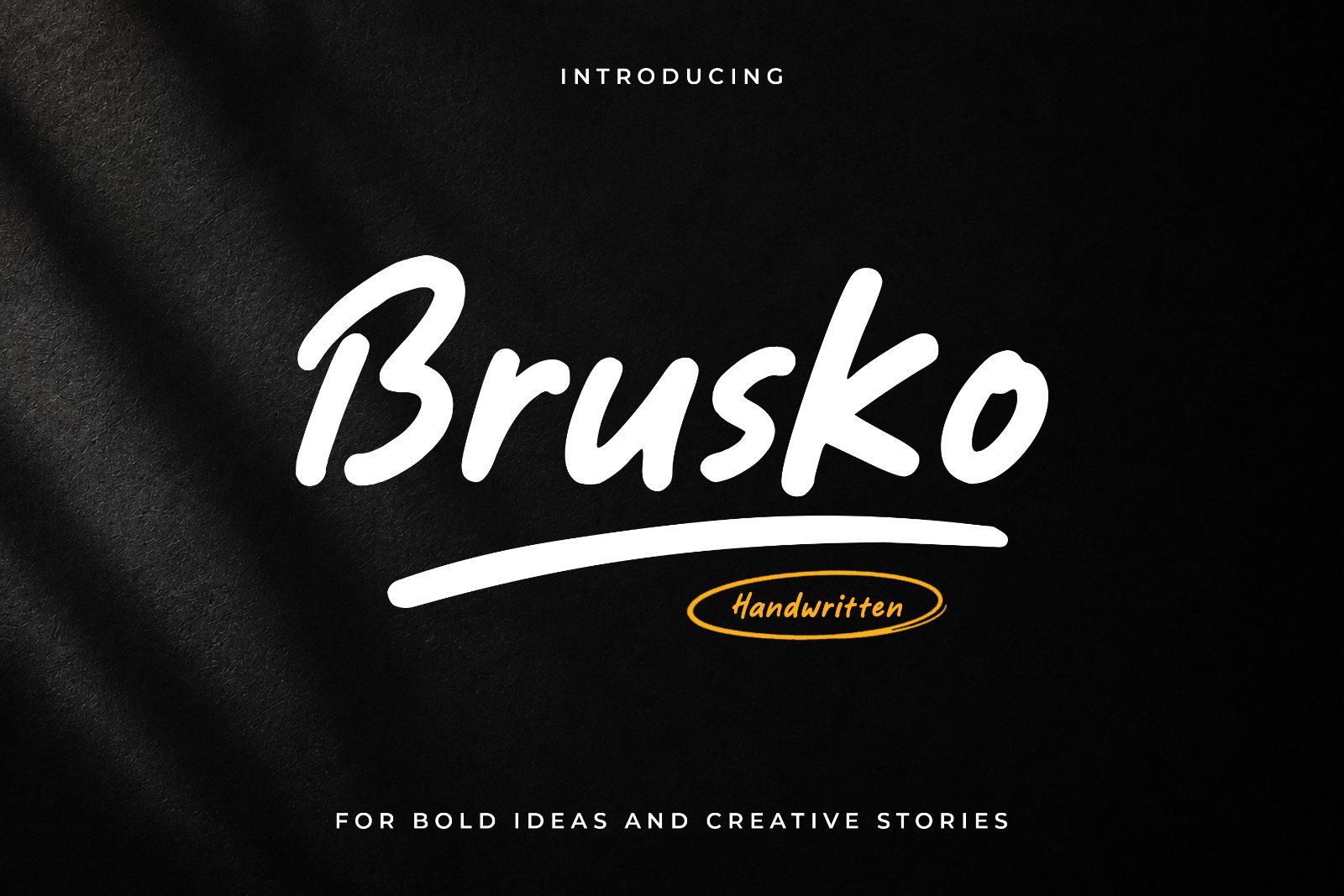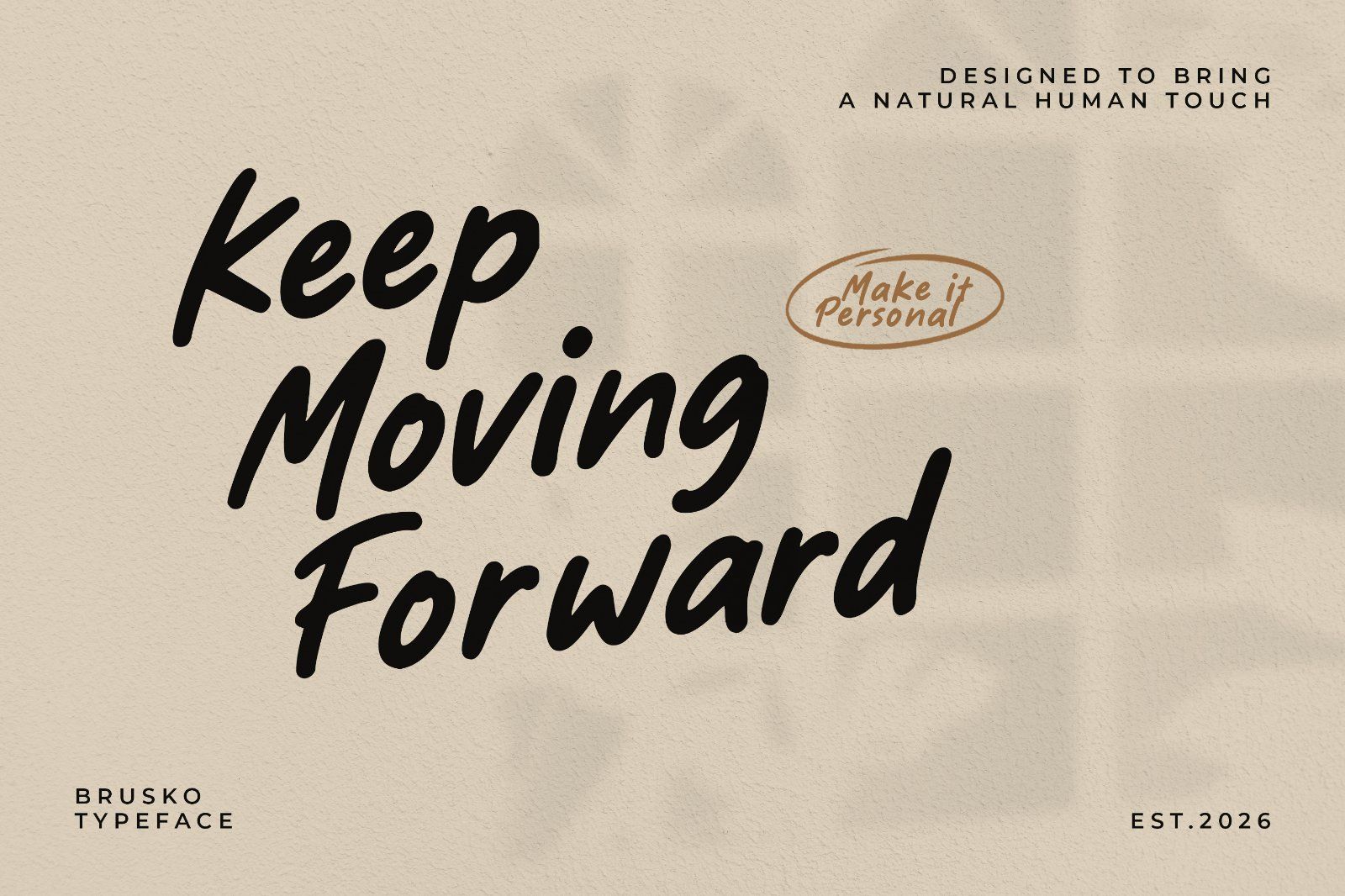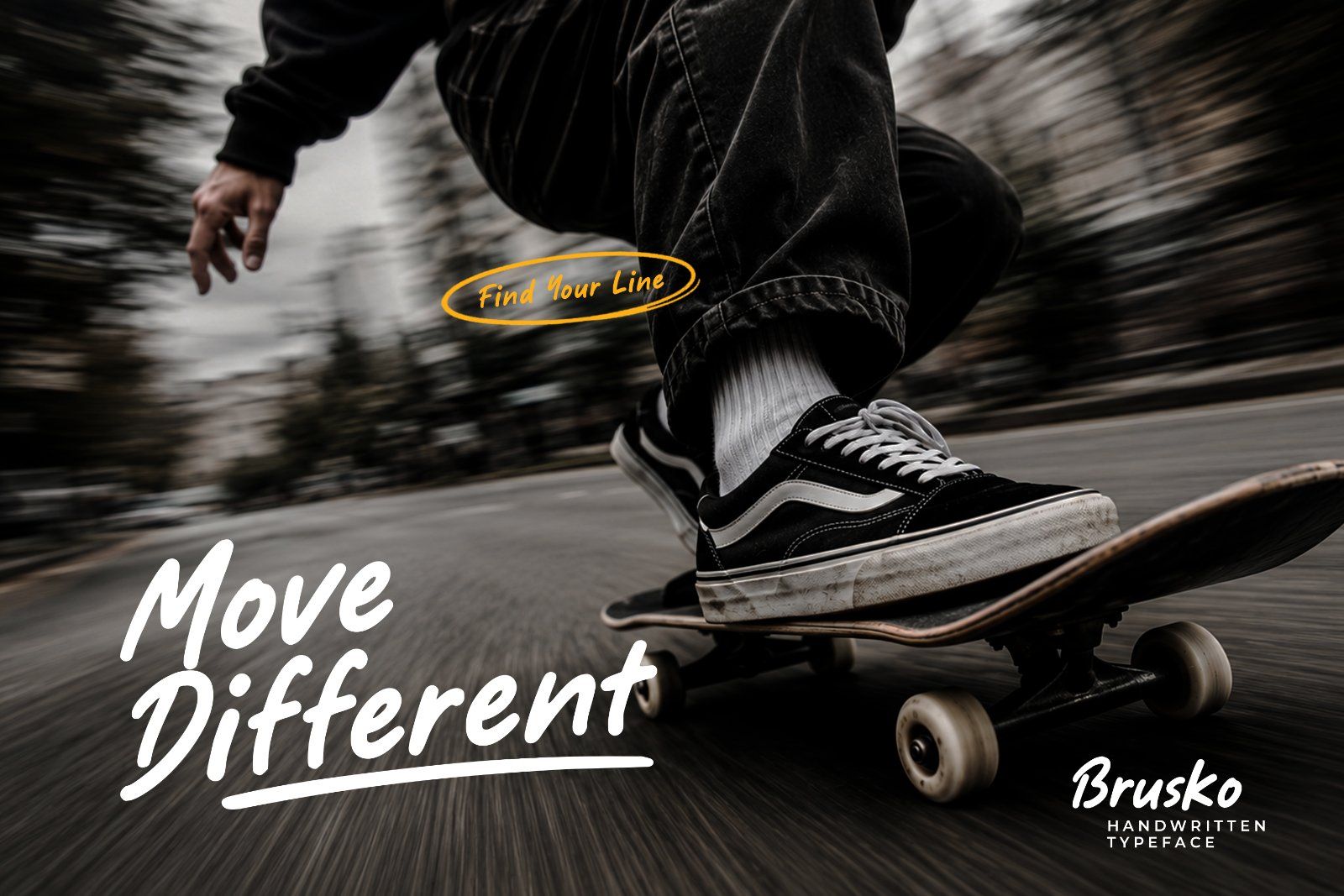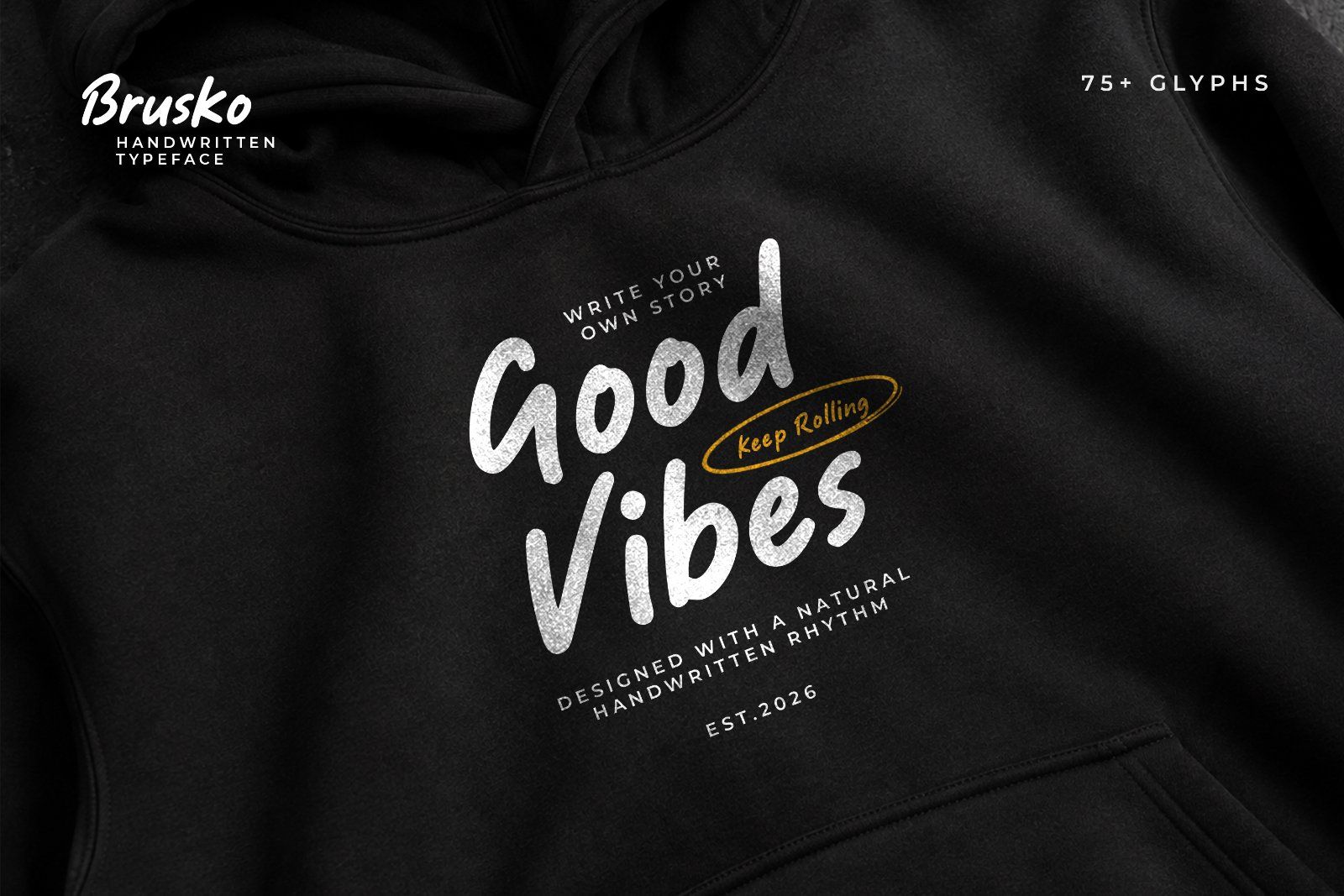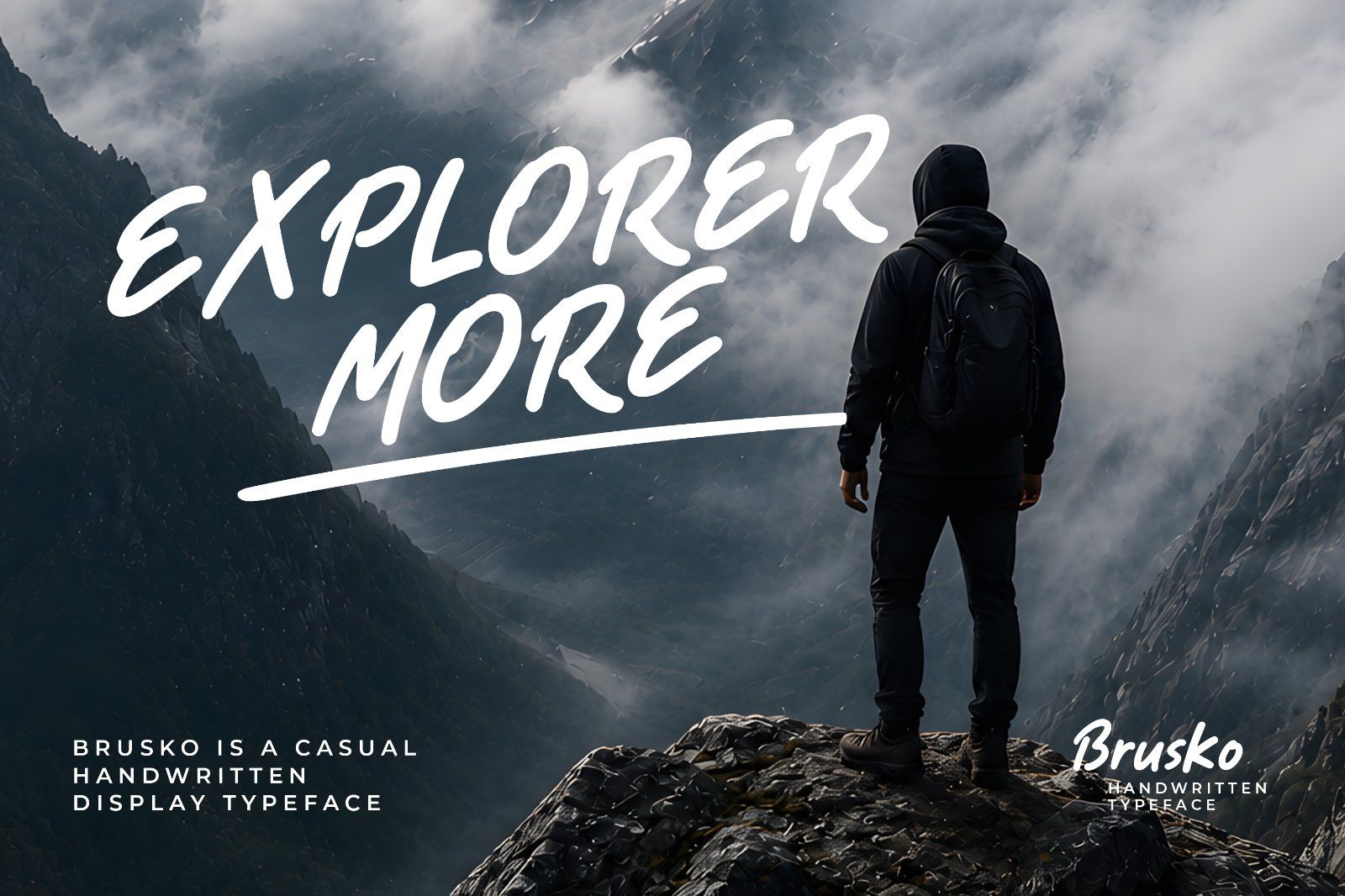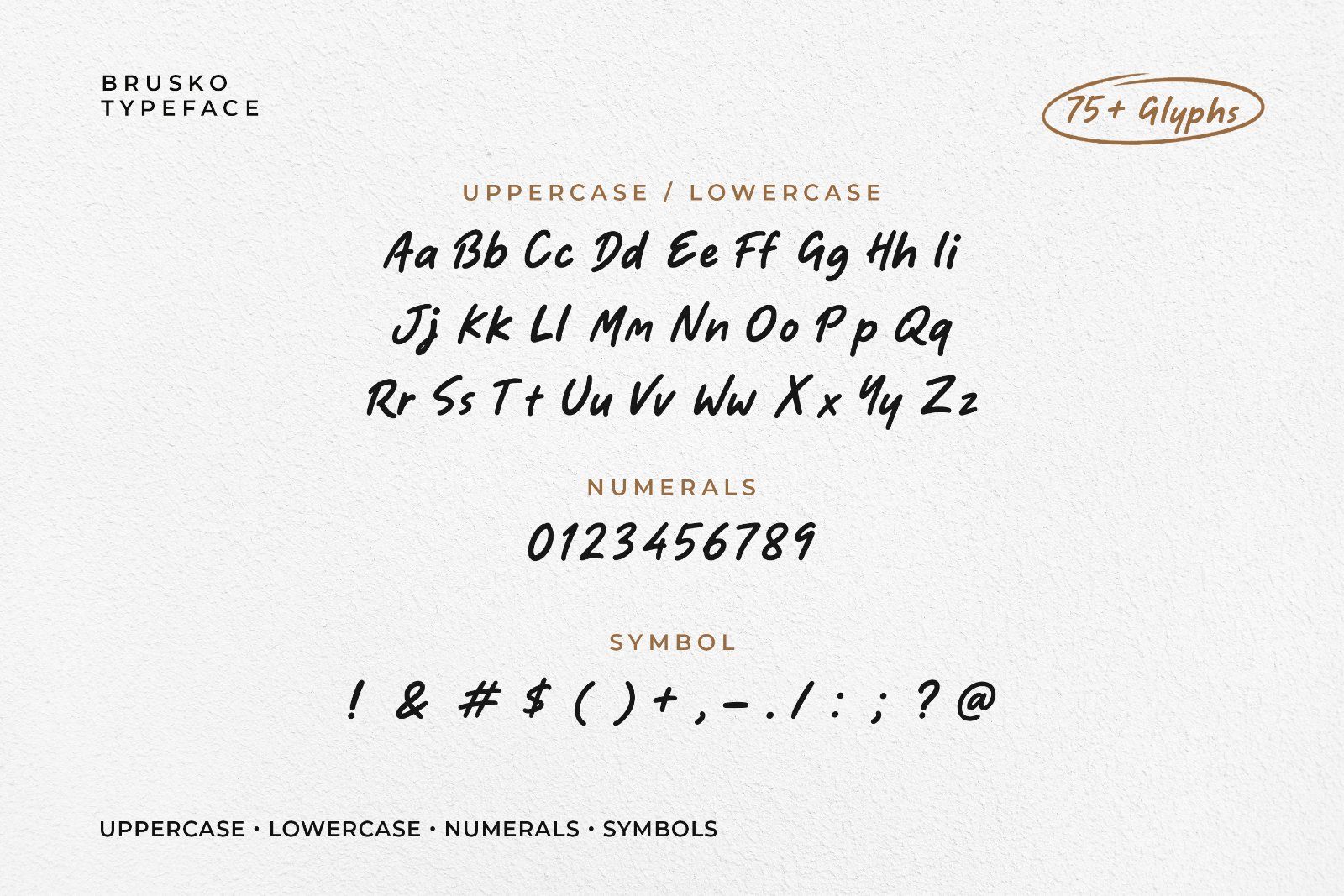
Brusko is a bold handwritten brush typeface with expressive strokes, natural movement, and a raw creative character. Perfect for logos, posters, apparel, packaging, branding, and bold visual designs.
• Full set of uppercase and lowercase letters
• Numbers, punctuation, and symbols
• Handcrafted rough brush textures with natural imperfections
• Logo & Brand Identity
• Streetwear & Apparel
• Packaging
• Merchandise
• T-Shirt Design
• Social Media Graphics
Whether you're designing a streetwear logo, a creative brand identity, a poster, product packaging, or social media artwork, Brusko brings a distinctive handwritten touch to your work.
Brusko is made for bold ideas, expressive designs, and creative stories.